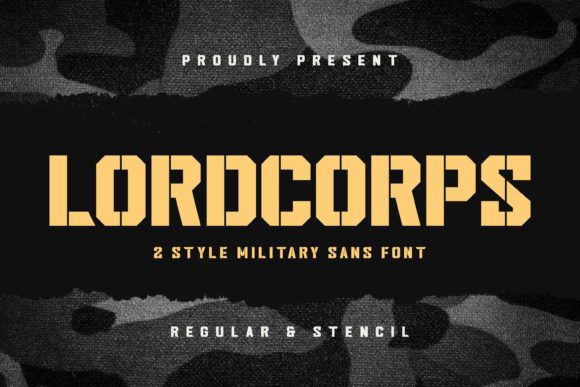
Unleash the Power: Introducing Lordcorps Font - The Quintessential Essence of Vintage Charm
In the realm of typography, where letters dance and stories unfold, allow us to introduce you to Lordcorps Font, a display typeface that captures the very essence of vintage allure. Crafted with meticulous precision by the skilled artisans at almarkhatype, Lordcorps is a font that breathes life into the past, evoking feelings of nostalgia and timeless elegance.
With its simple yet captivating strokes, Lordcorps exudes a military feel, reminiscent of bygone eras. Its neat and beautiful arrangement of letters creates a visual symphony that dances across your designs, adding a touch of sophistication and old-world charm to your creative endeavors.
Whether you seek to weave tales of adventure, craft heartfelt invitations, or design captivating logos, Lordcorps Font stands as your steadfast companion, ready to elevate your creations to new heights of artistry. Its versatility knows no bounds, adapting seamlessly to a myriad of design styles, from formal to non-formal.
Immerse yourself in the world of Lordcorps, where each letter carries a story waiting to be told. Let this remarkable font transport you to a time of chivalry, where knights errant roamed the land and dreams knew no limits.